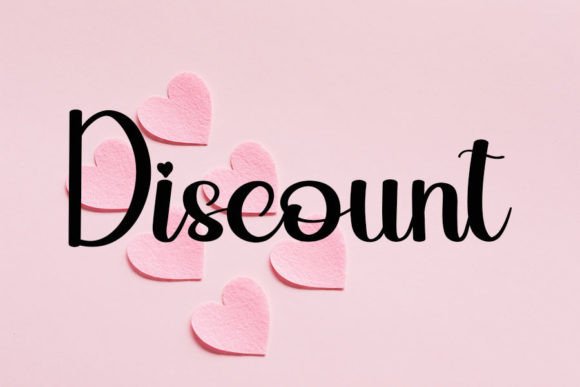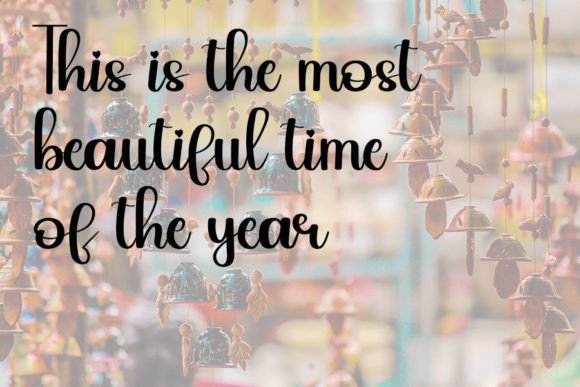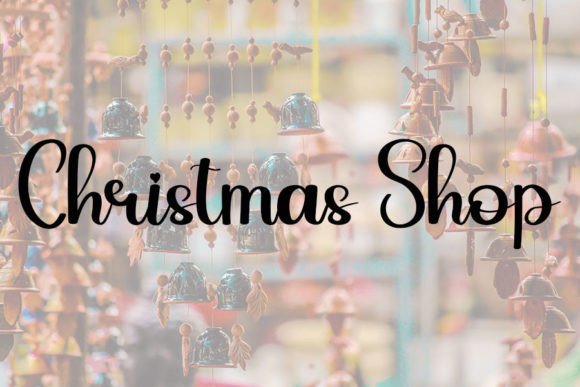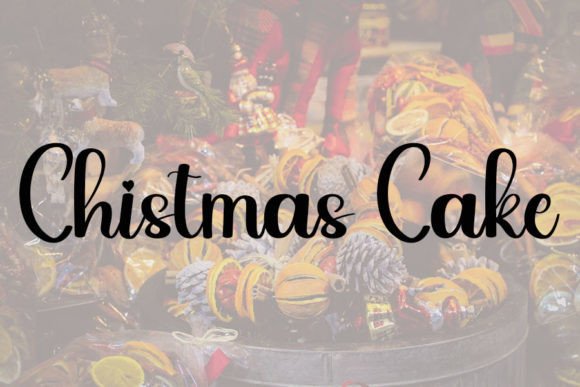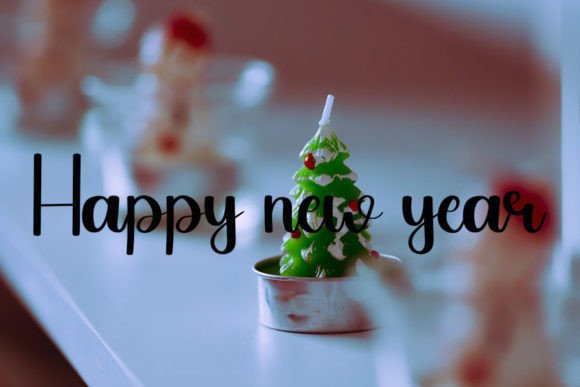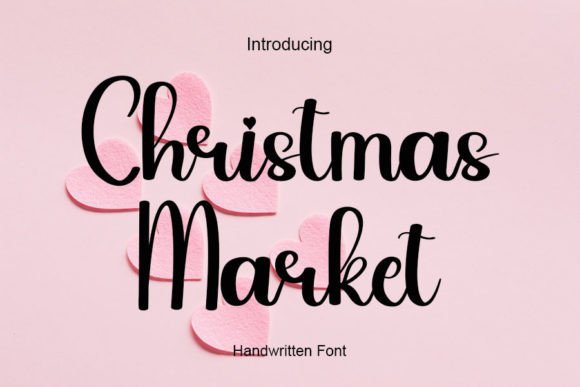
Christmas Market Font: A Timeless and Elegant Choice for Your Holiday Designs
The holiday season is upon us, and with it comes the joy of creating festive and beautiful designs for Christmas markets, holiday cards, and seasonal projects. If you’re a designer or crafter looking for the perfect font to add a touch of elegance and sophistication to your work, look no further than the Christmas Market Font. This stunning handwritten font is described by its elegant touch, making it perfect for your favorite projects.
What is Christmas Market Font?
Christmas Market Font is a neat and beautiful handwritten font that exudes a sense of timelessness and classic style. Its incredibly distinct and elegant design makes it stand out from other fonts, and its versatility ensures that it can be used for a wide range of projects, from holiday cards and invitations to festive posters and social media graphics.
Key Features of Christmas Market Font
- Elegant and Timeless Design: Christmas Market Font boasts an incredibly distinct and timeless style that is sure to capture the essence of the holiday season.
- Handwritten with Love: This beautiful font is handwritten with love and care, giving it a personal and unique touch that sets it apart from other fonts.
- Perfect for Holiday Projects: Whether you’re creating designs for Christmas markets, holiday cards, or seasonal projects, Christmas Market Font is the perfect choice.
- Easy to Read and Use: This font is easy to read and use, making it perfect for designers and crafters of all skill levels.
Why Choose Christmas Market Font?
So, why choose Christmas Market Font for your holiday designs? Here are just a few reasons:
- Adds a Touch of Elegance: Christmas Market Font adds a touch of elegance and sophistication to any design, making it perfect for holiday projects.
- Versatile and Flexible: This font can be used for a wide range of projects, from holiday cards and invitations to festive posters and social media graphics.
- Unique and Distinctive: Christmas Market Font is a unique and distinctive font that will set your designs apart from the rest.
How to Use Christmas Market Font
Using Christmas Market Font is easy! Here are a few tips to get you started:
- Pair it with Other Fonts: Pair Christmas Market Font with other fonts to create a unique and eye-catching design.
- Use it for Headings and Titles: Use Christmas Market Font for headings and titles to add a touch of elegance and sophistication to your design.
Here are a few tips and tricks for designers and crafters looking to get the most out of Christmas Market Font:
- Use it for Holiday Cards and Invitations: Use Christmas Market Font to create beautiful and elegant holiday cards and invitations.
- Create Festive Posters and Graphics: Use Christmas Market Font to create festive posters and graphics for social media and other platforms.
- Add a Personal Touch: Add a personal touch to your designs by using Christmas Market Font in combination with other fonts and design elements.
Christmas Market Font is a beautiful and elegant handwritten font that is perfect for holiday designs. Its timeless and classic style makes it a versatile and flexible choice for a wide range of projects, from holiday cards and invitations to festive posters and social media graphics. Whether you’re a designer or crafter, Christmas Market Font is sure to become a favorite in your collection.